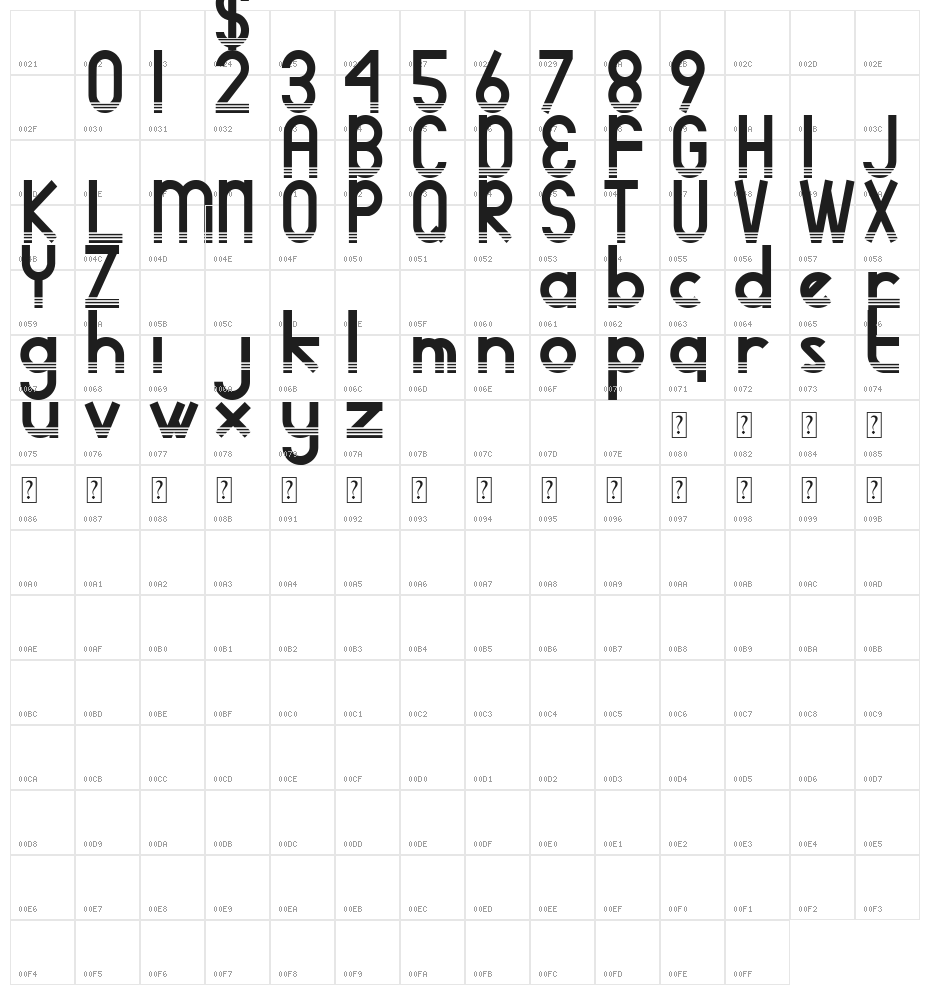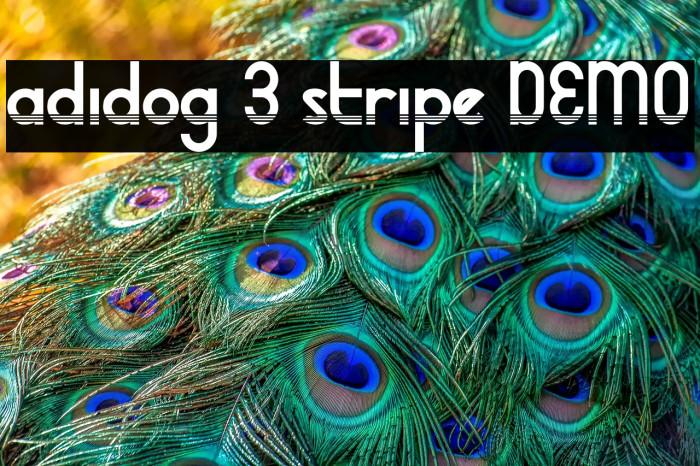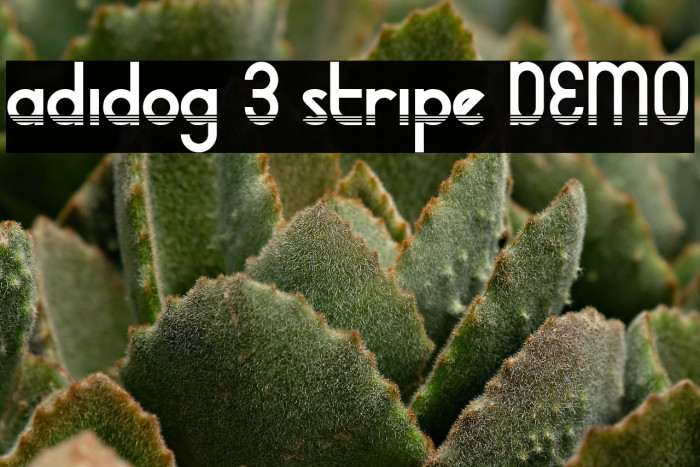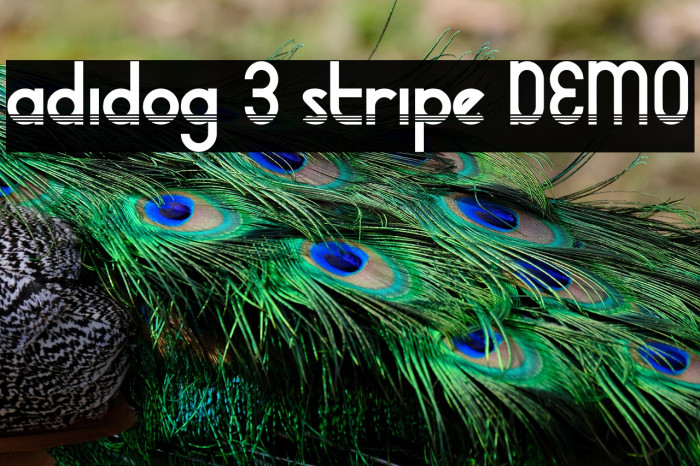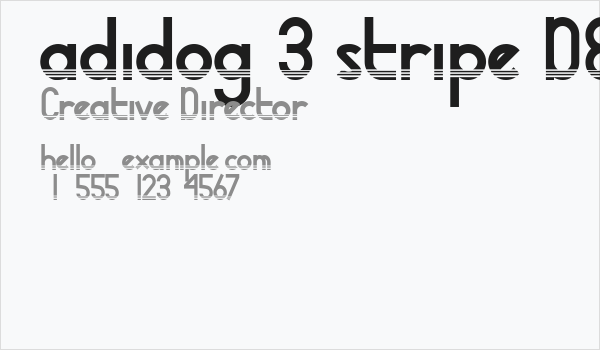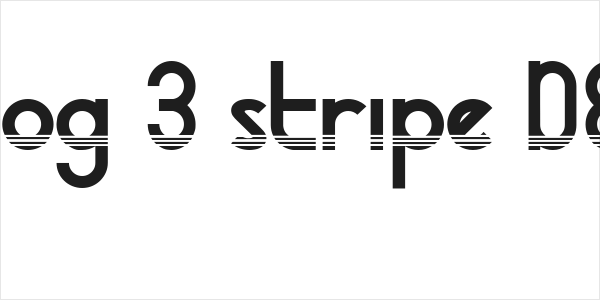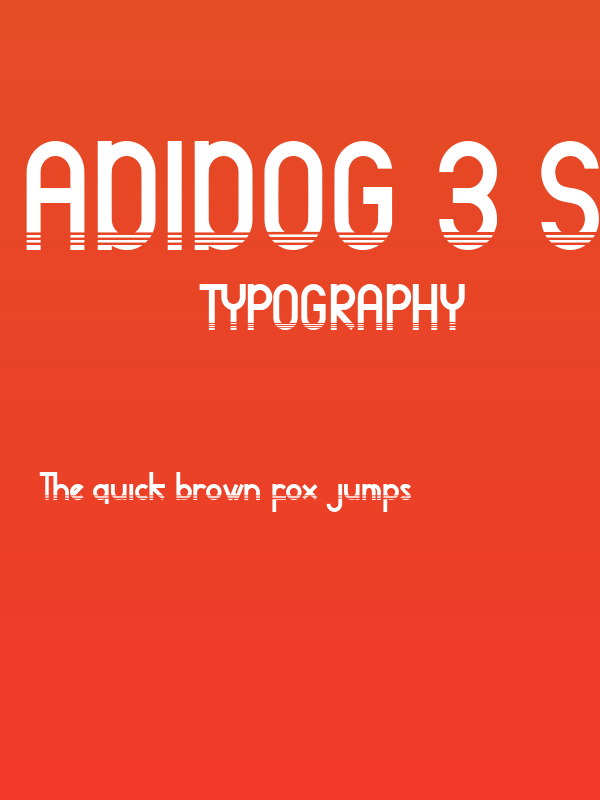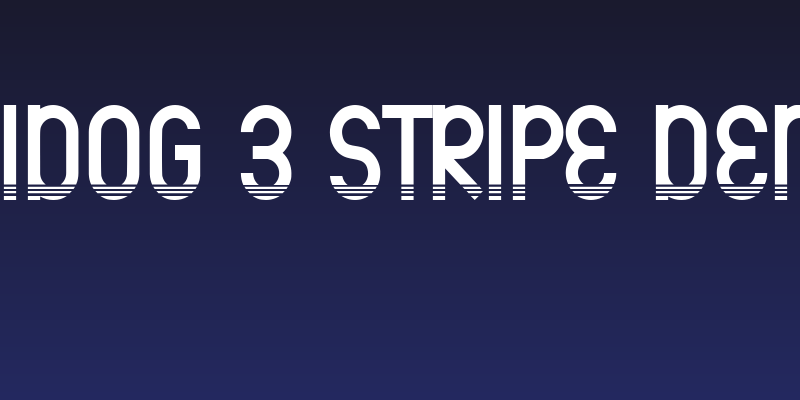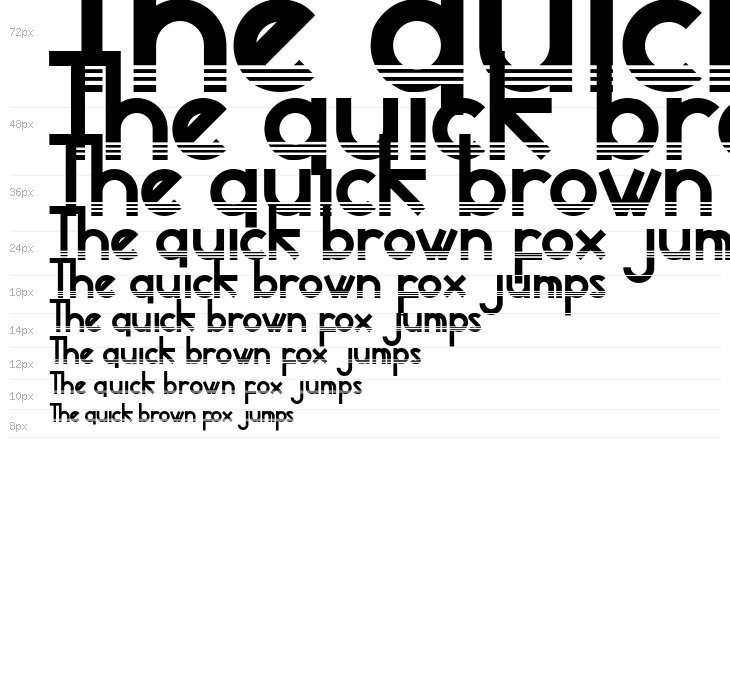
adidog 3 stripe DEMO Font
adidog 3 stripe DEMO Description
This font features a bold and modern design with a unique three-stripe pattern running horizontally through each character. The uppercase and lowercase letters maintain a consistent width, creating a cohesive look. The numerals and special characters follow the same stylistic approach, ensuring uniformity across all glyphs. The font's geometric shapes and clean lines give it a contemporary feel, making it suitable for eye-catching designs.
| Use Case | Logos, Headlines, Branding |
| Proposed Projects | Ideal for branding, sports-themed designs, apparel logos, and modern advertising. |